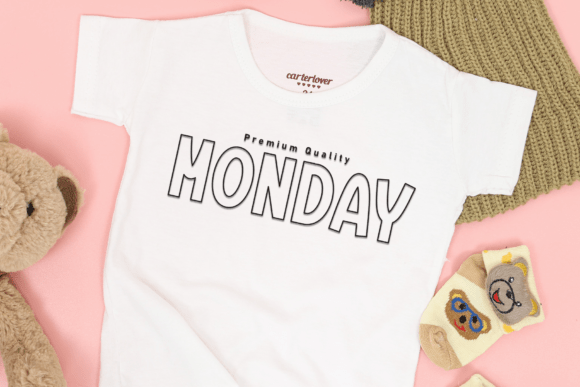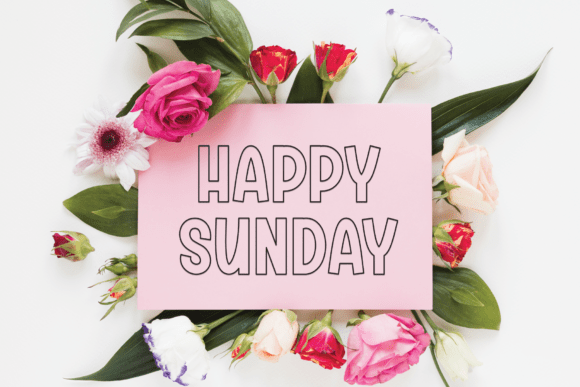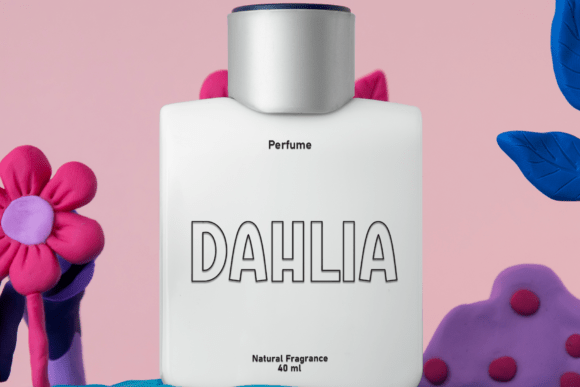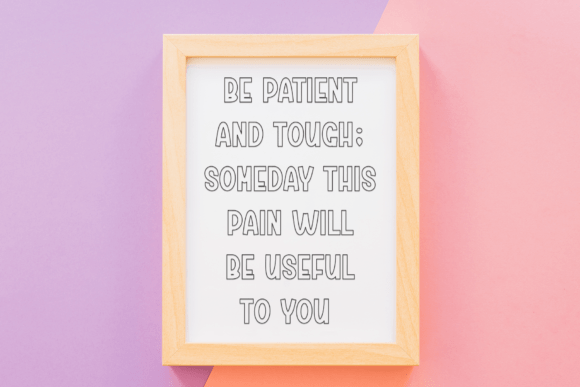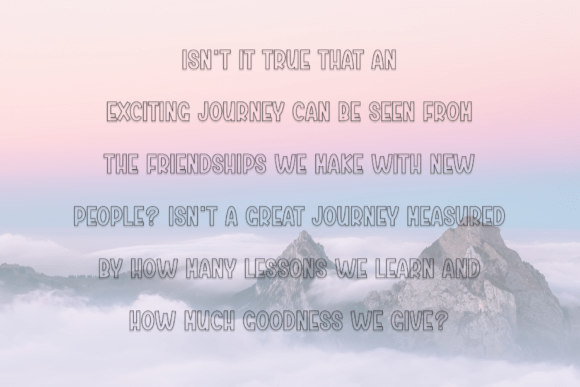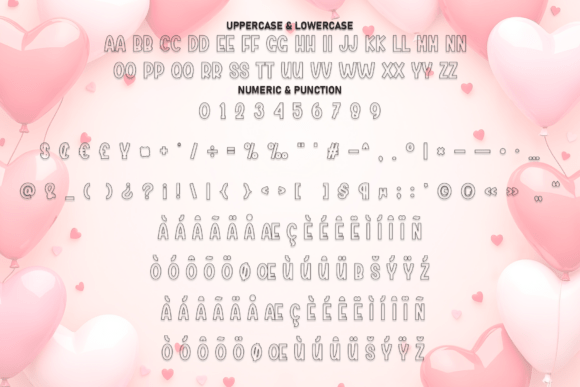
Introduction to Love Birthday Font Font
Fonts play a crucial role in design, and the Love Birthday Font font is a typeface that brings both character and versatility to any project. Whether you’re working on a branding project, a website, or a print design, the Love Birthday Font font offers a unique style that can elevate your work.
| 📌 Font Name | Love Birthday Font |
| 👤 Author | Robbots stores |
Dive into a magical sphere with our meticulously hand-drawn display font, a mesmerizing balance of elegance and eccentric uniqueness.
Our diligently hand-crafted typeface radiates with delightful charm, striking the perfect equilibrium between lively and inviting A paragon of novelty, this font adds a zest of humor and intrigue to all typographic pursuits.
Key Features of Love Birthday Font Font
Why Choose Love Birthday Font Font?
The Love Birthday Font font is more than just a typeface – it’s a design tool that helps you communicate your message with style and clarity. Its unique character set and versatile design make it suitable for a wide range of applications, from elegant invitations to bold headlines.
With its carefully crafted letterforms and balanced proportions, the Love Birthday Font font ensures readability and visual appeal across all mediums.
What makes Love Birthday Font font special?
The Love Birthday Font font stands out with its unique design, exceptional readability, and versatility across various design applications.